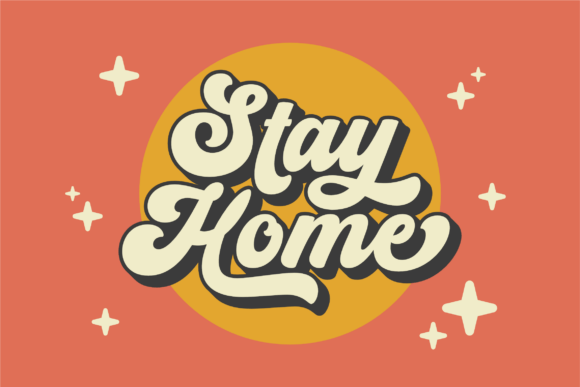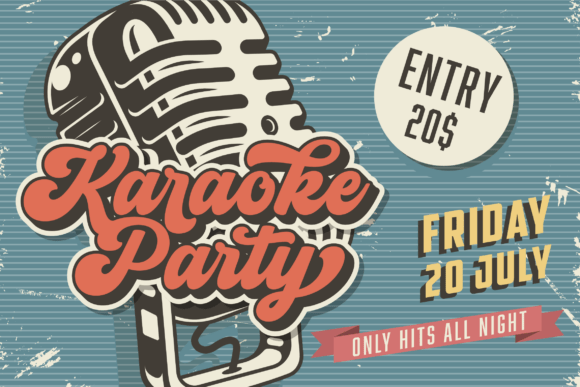
Unlock the Power of Headmain Font
Have you ever been working on a creative project and suddenly, the right font makes all the difference? The moment when everything clicks into place, and your design transforms from good to great. This is what the Headmain Font is all about – elevating your design to the next level. With its bold and dynamic layered script, this high-quality font is a design resource that will take your creative projects to new heights.
Whether you’re working on a poster, a vintage-inspired design, or a branding project, the Headmain Font is the perfect tool to make a striking and energetic statement. Its fluid curves and thick strokes create a unique and expressive look that’s sure to grab attention. Plus, with its transparent background and support for multiple languages, this font is a versatile design tool that’s ready to take on any project.
Key Features of Headmain Font
- High-quality design: Headmain Font is a professional font suitable for various creative projects, offering a sophisticated and elegant look.
- Unique characteristics: The font features a unique blend of modern and classic elements, making it an ideal choice for creative projects that require a touch of sophistication.
- Perfect design resource: Headmain Font is an excellent addition to any designer’s toolkit, providing a versatile and high-quality design resource for various creative projects.
Honest Review: Headmain Font
I recently came across the Headmain Font, and I must say it’s a great addition to any design resource collection. This high quality font is perfect for creative projects that require a unique touch. One of the standout features of the Headmain Font is its transparent background, which makes it incredibly versatile and easy to use.
- ✨ High quality design that’s perfect for creative projects
- ✨ Transparent background for easy customization
- ⚠️ Limited character set, which may not be suitable for longer texts
- ⚠️ Not all platforms support the transparent background feature
Overall, I’m impressed with the Headmain Font. It’s a great design resource that’s perfect for designers who want to add a touch of uniqueness to their projects. While it may have some limitations, the benefits far outweigh the drawbacks. If you’re looking for a high quality, free font, the Headmain Font is definitely worth checking out.
The Headmain Font is commonly used in graphic design, digital art, and creative writing. Its unique and elegant design makes it perfect for use in business cards, brochures, and other marketing materials. It is also a popular choice for use in logos and branding materials.
The Headmain Font features a transparent background, making it an ideal design resource for projects that require a high level of customization. The font’s transparent background allows designers to easily layer it over other design elements, creating a seamless and professional-looking design.